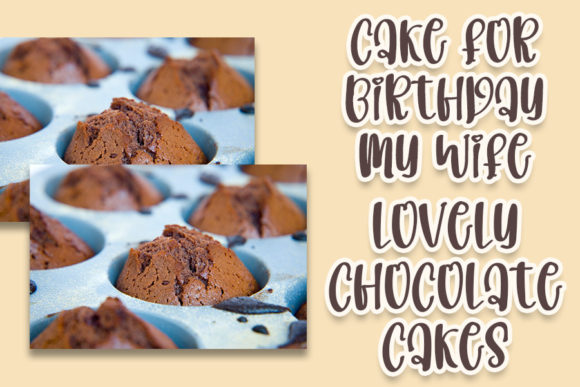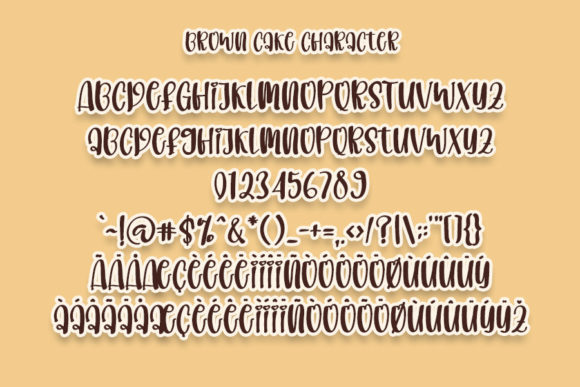
About Brown Cakes Font
Brown Cakes is a playful and smart-looking handwritten font. It is the best choice for creating eye-catching logos, branding, and quotes. Every letter has a unique and beautiful touch, which will make your design come alive!